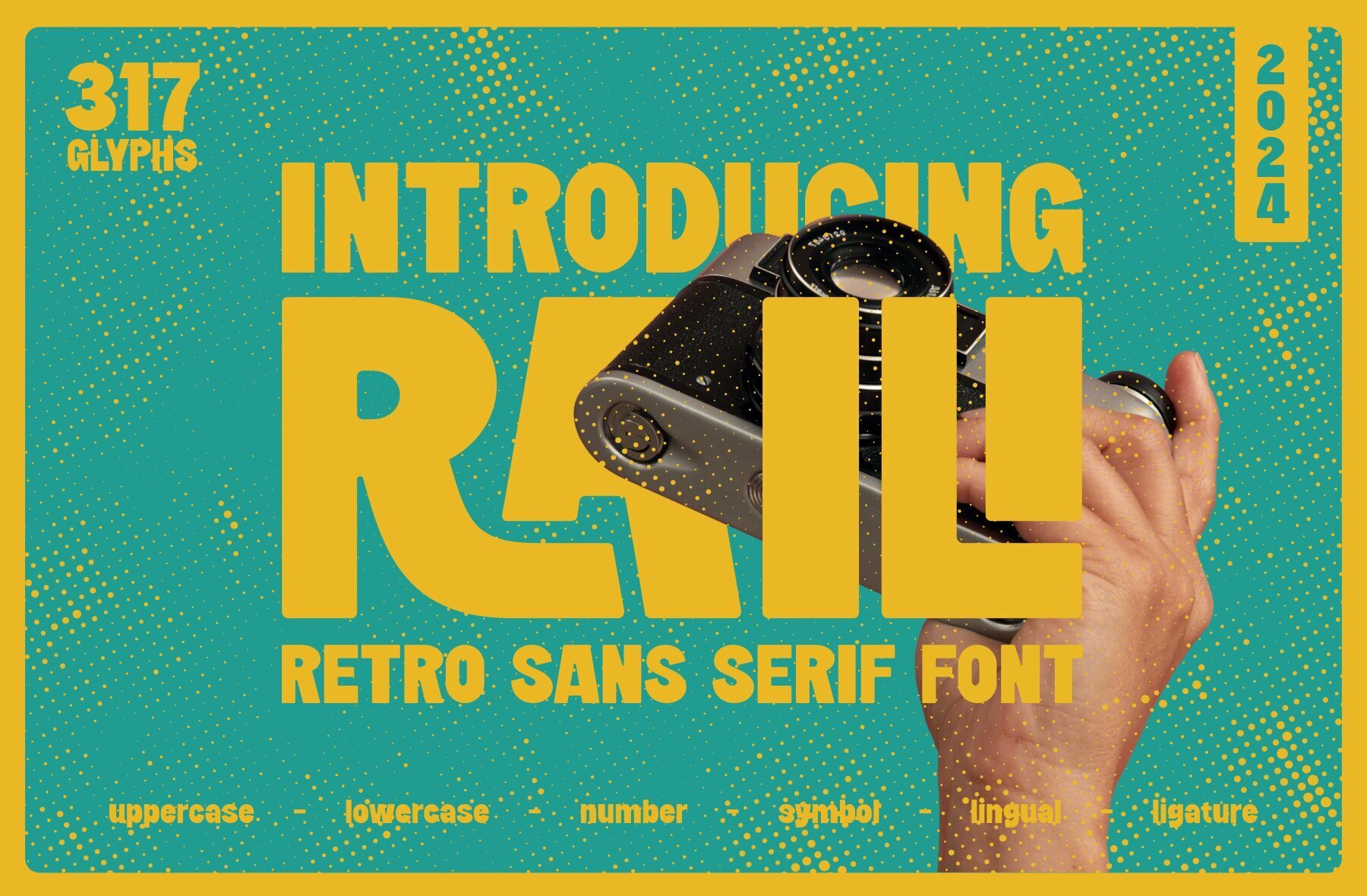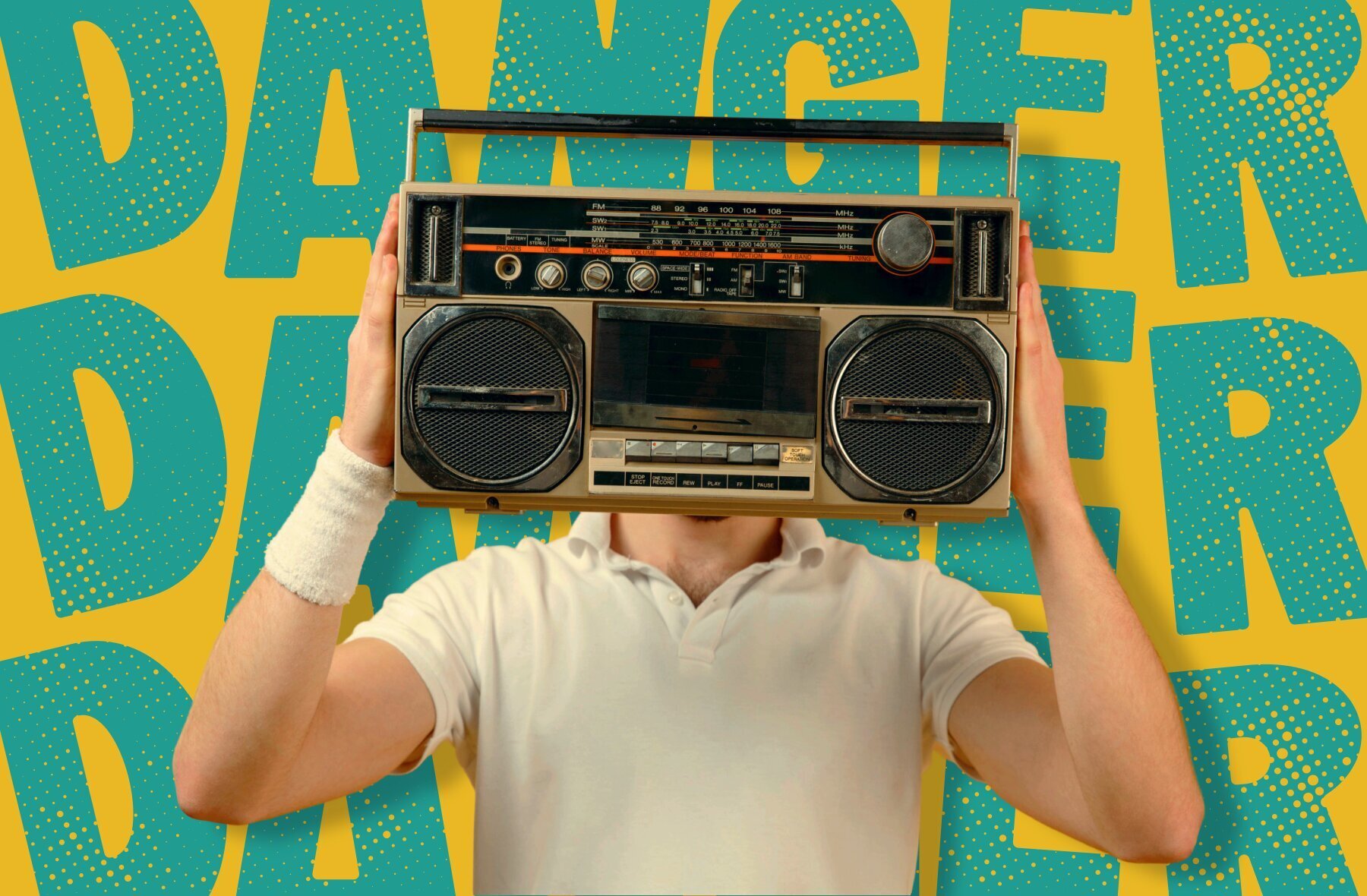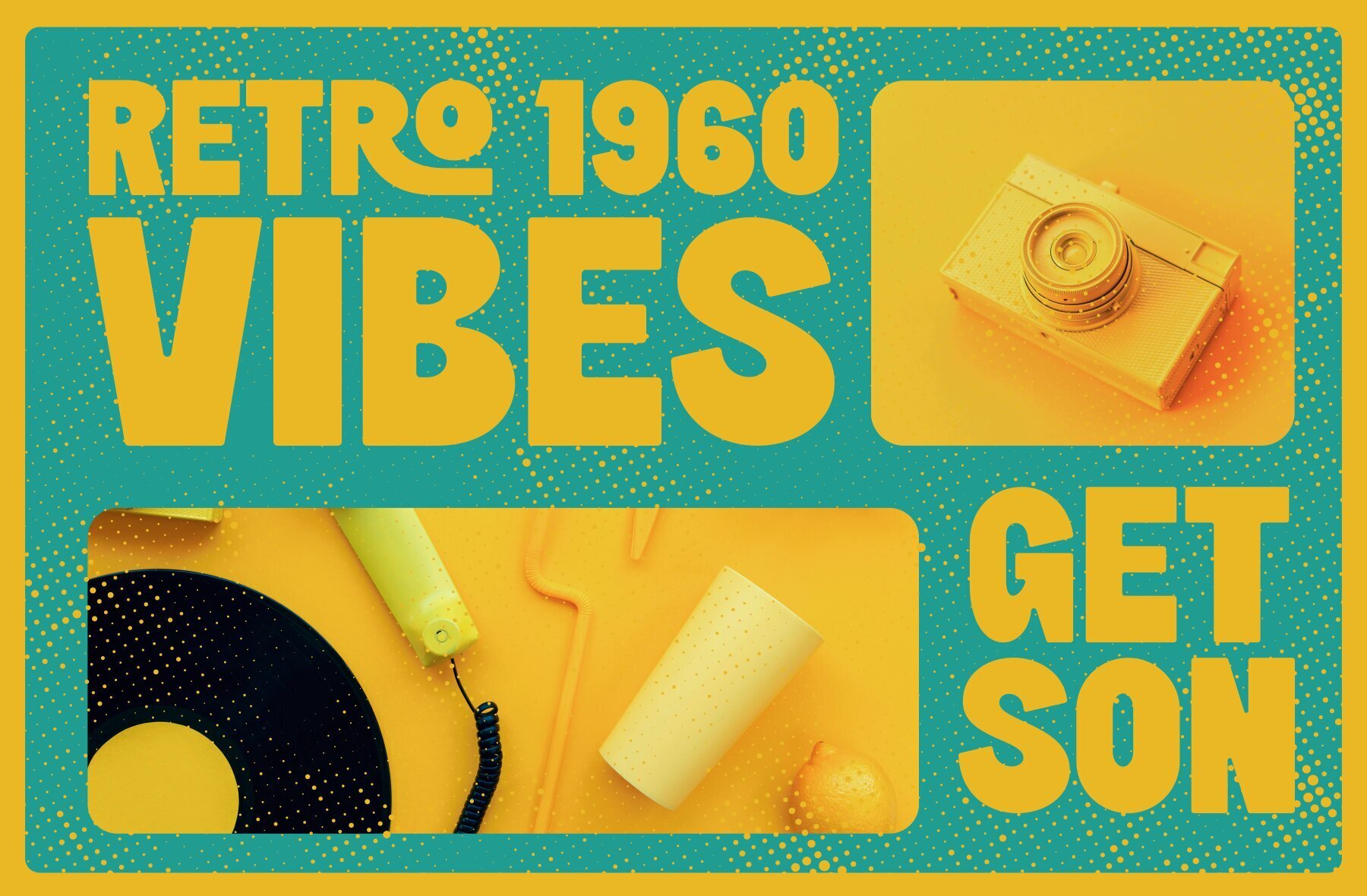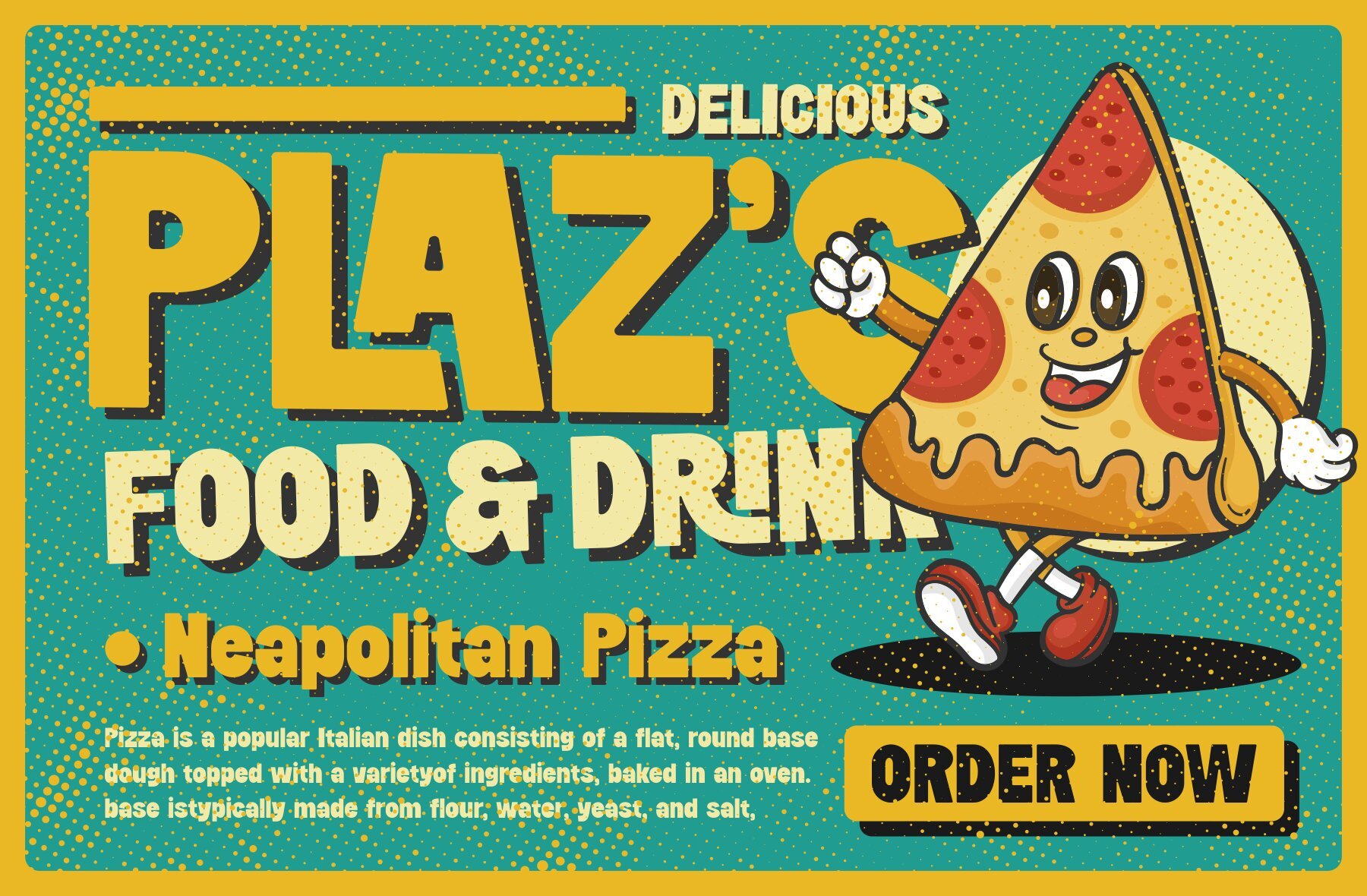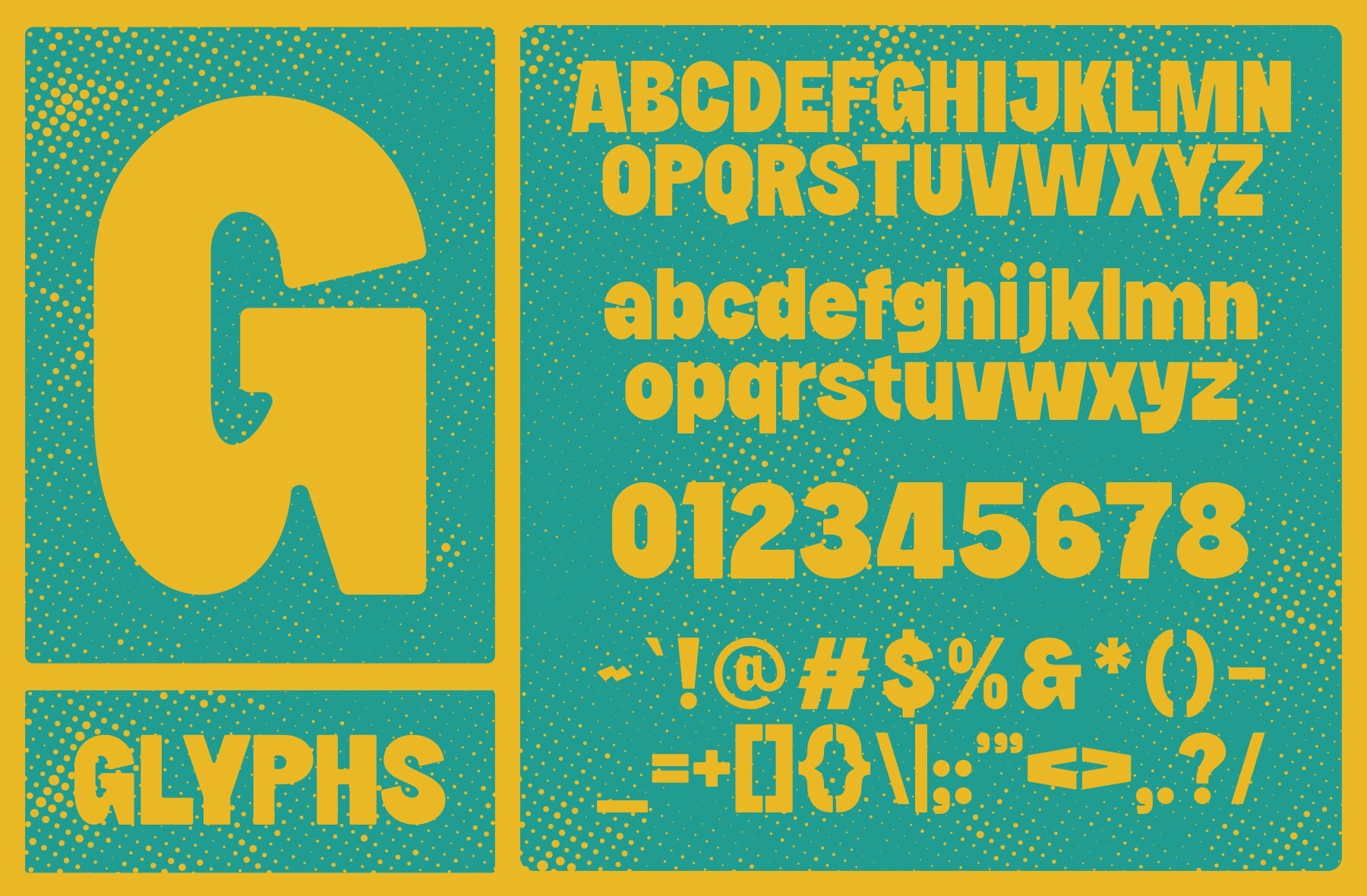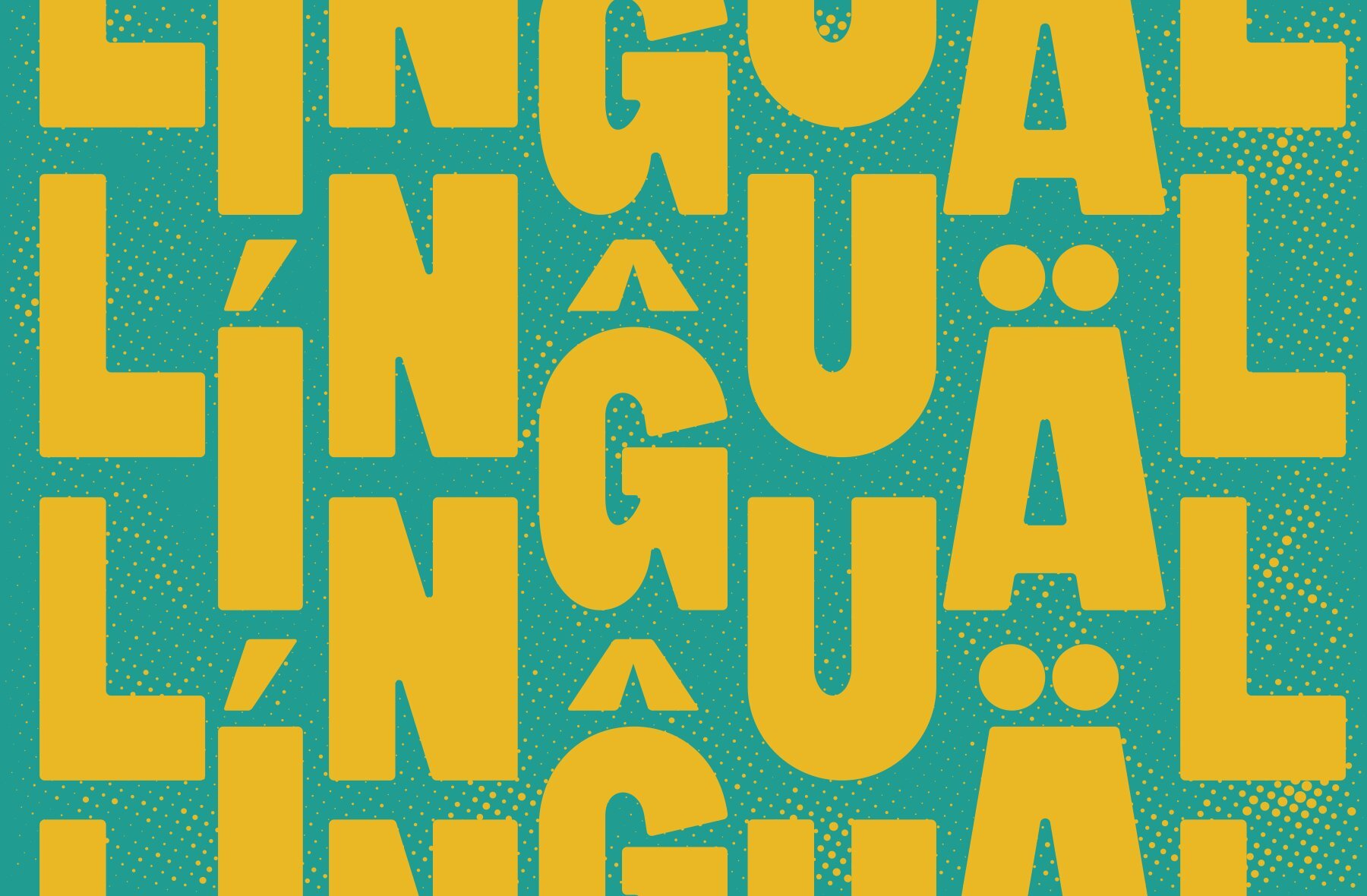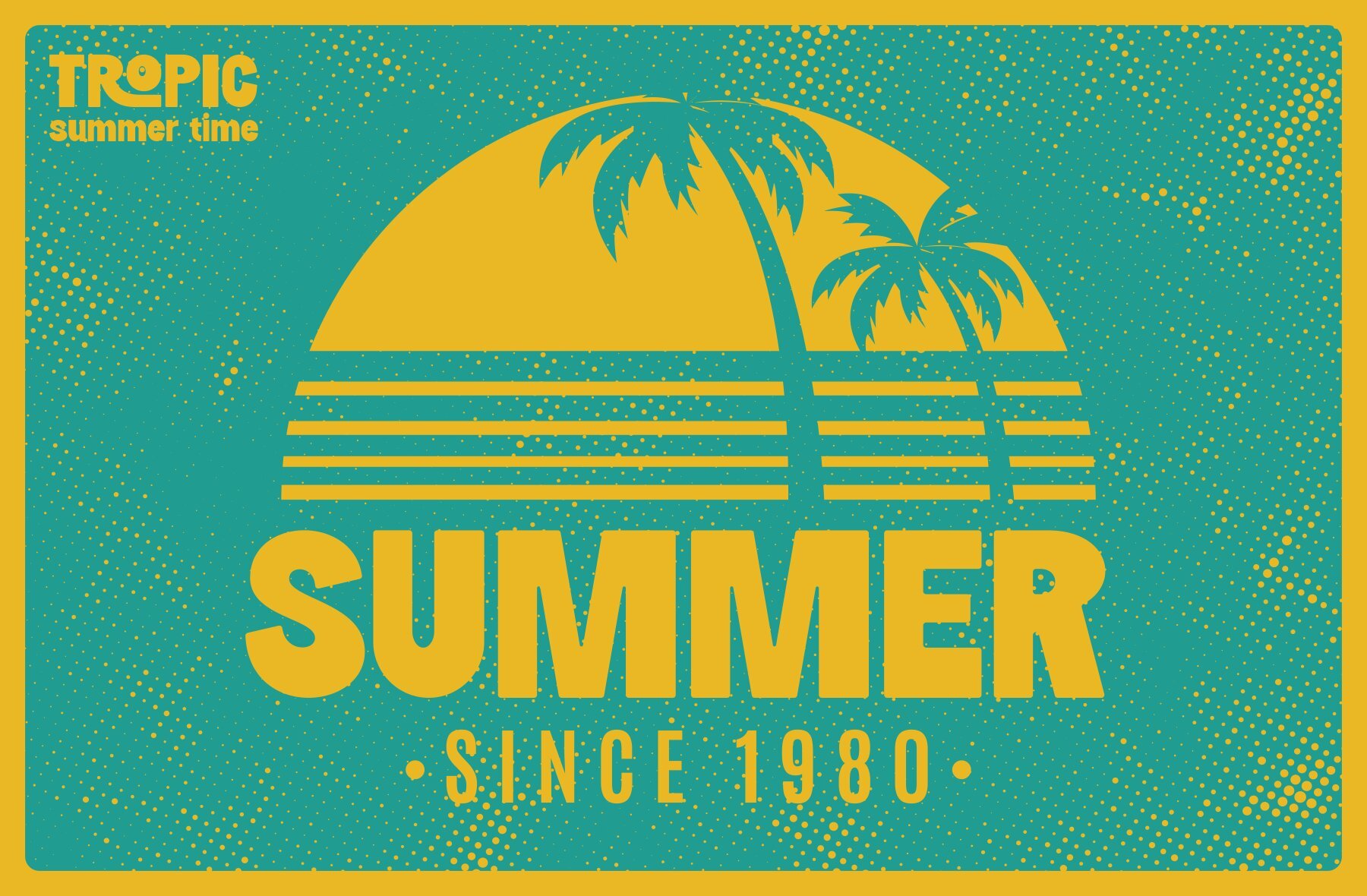
Raili Font
RAILI
This geometric sans-serif font features bold, rounded letterforms that create a strong and impactful presence. Its high-contrast and expressive design make it perfect for headlines, posters, and any project requiring an attention-grabbing statement. Ideal for designers seeking a modernist flair with a touch of industrial strength.